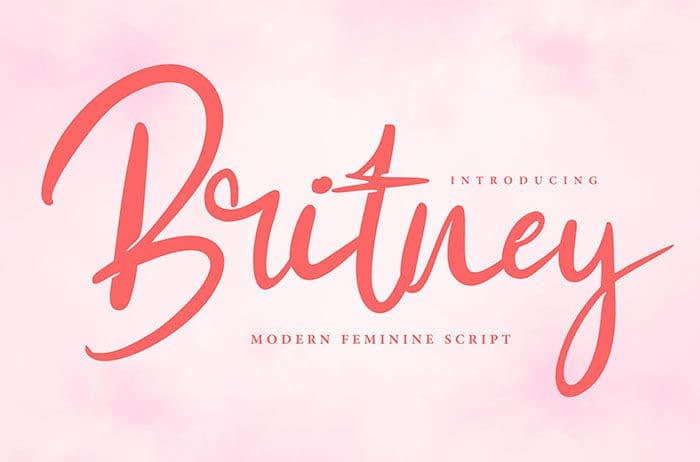
Britney Script Font
Britney is a modern homage to the classic script font. It is perfect for logo and packaging design, stationery, headlines, and many more. It will add an authentic vibe to any design project. Thanks to Vunira for sharing this font. Take a look at this portfolio for more of his stunning fonts.